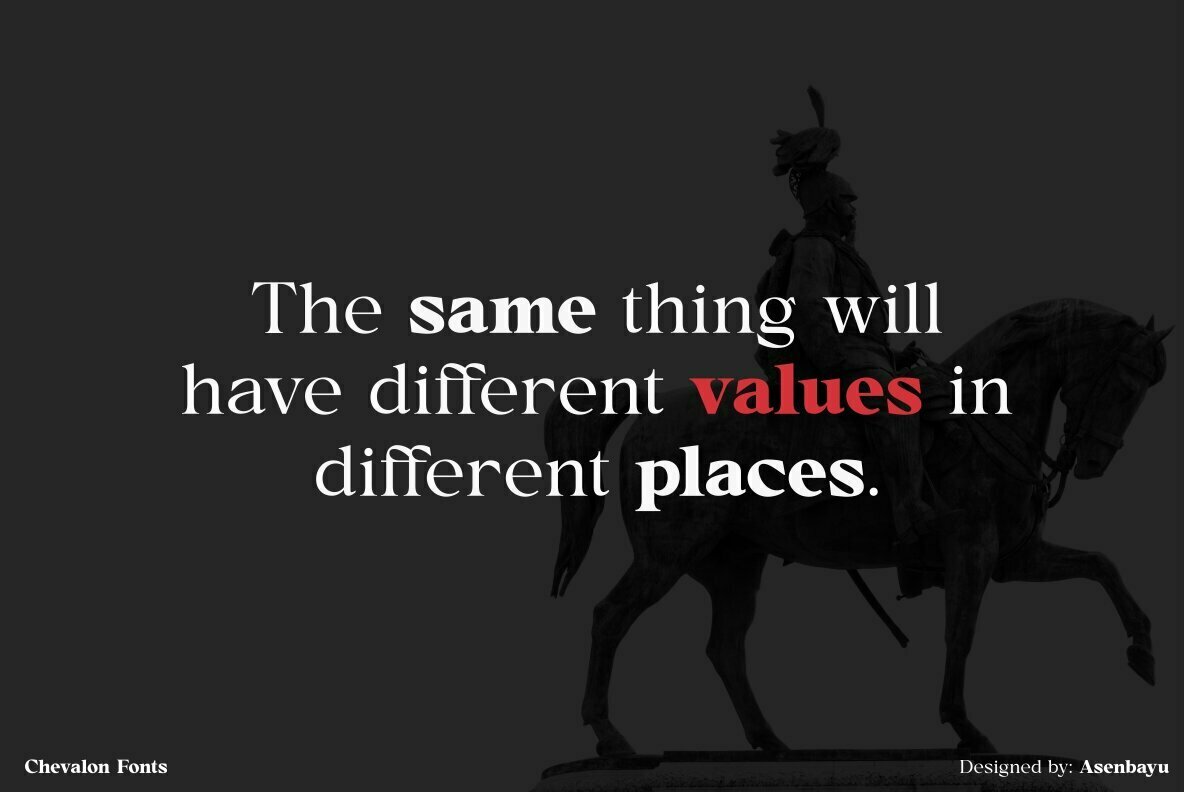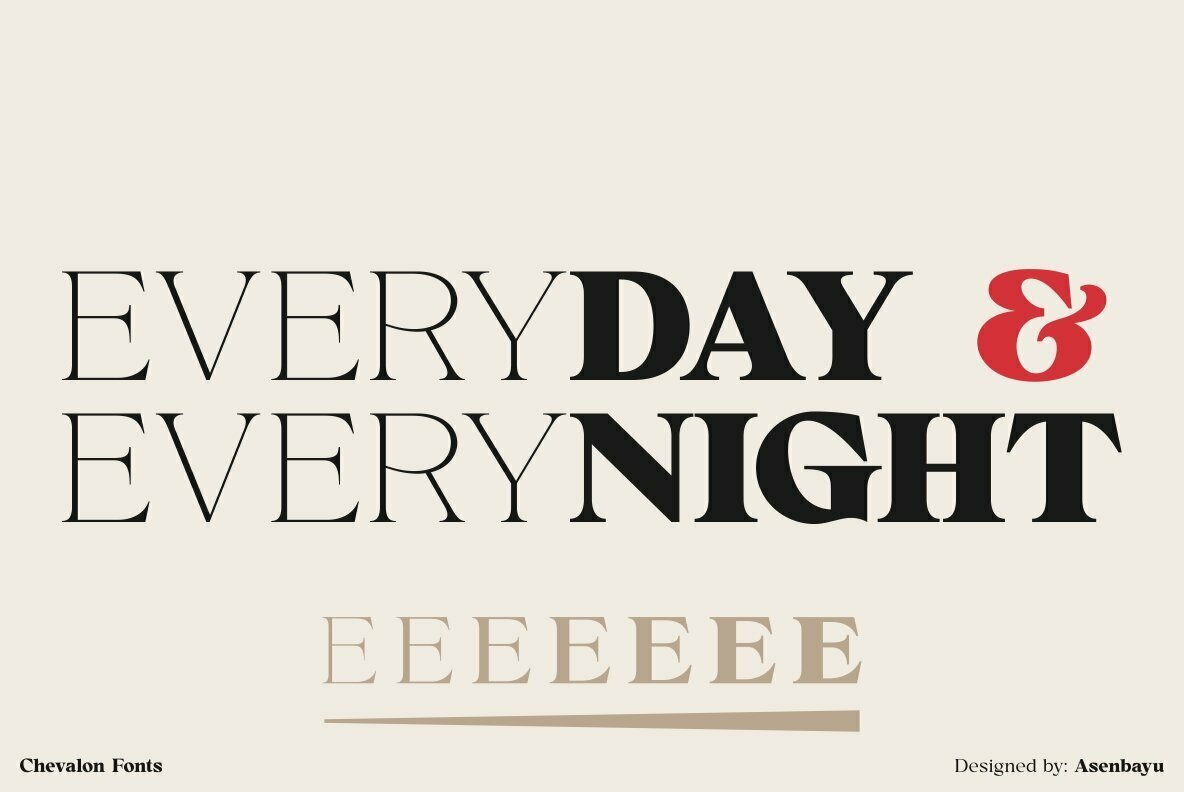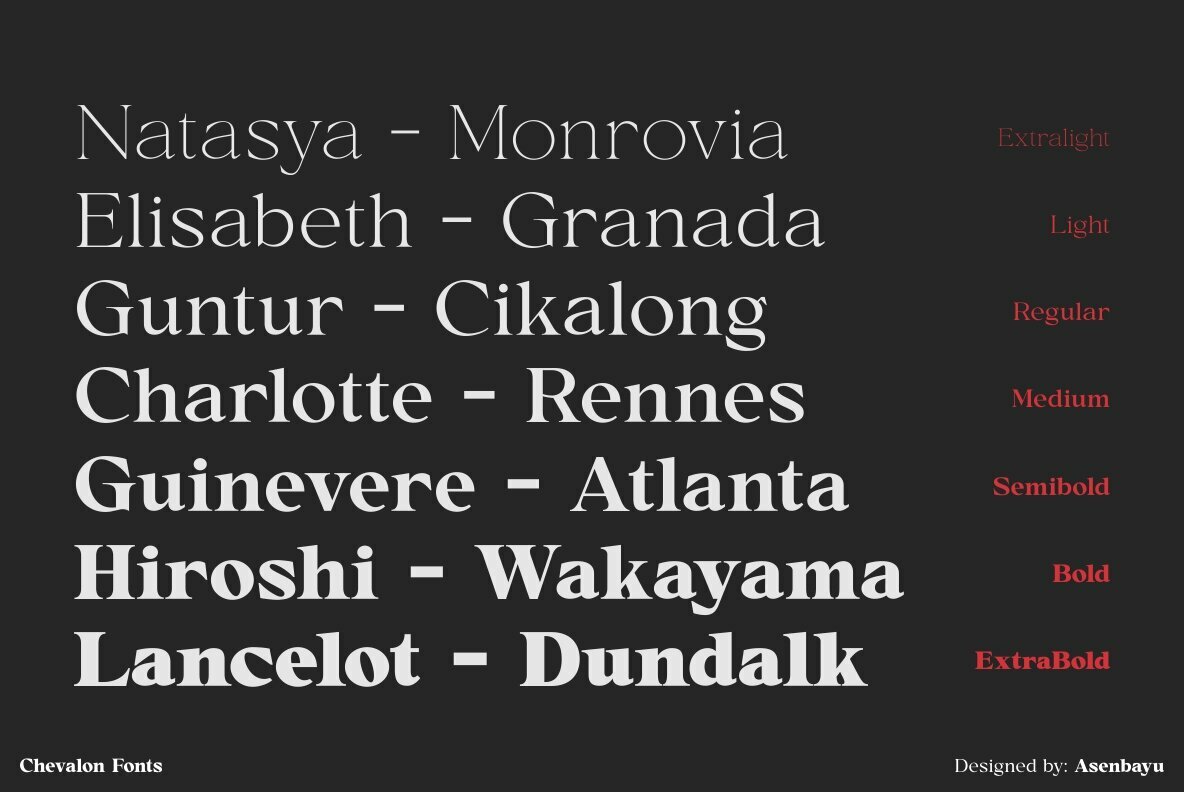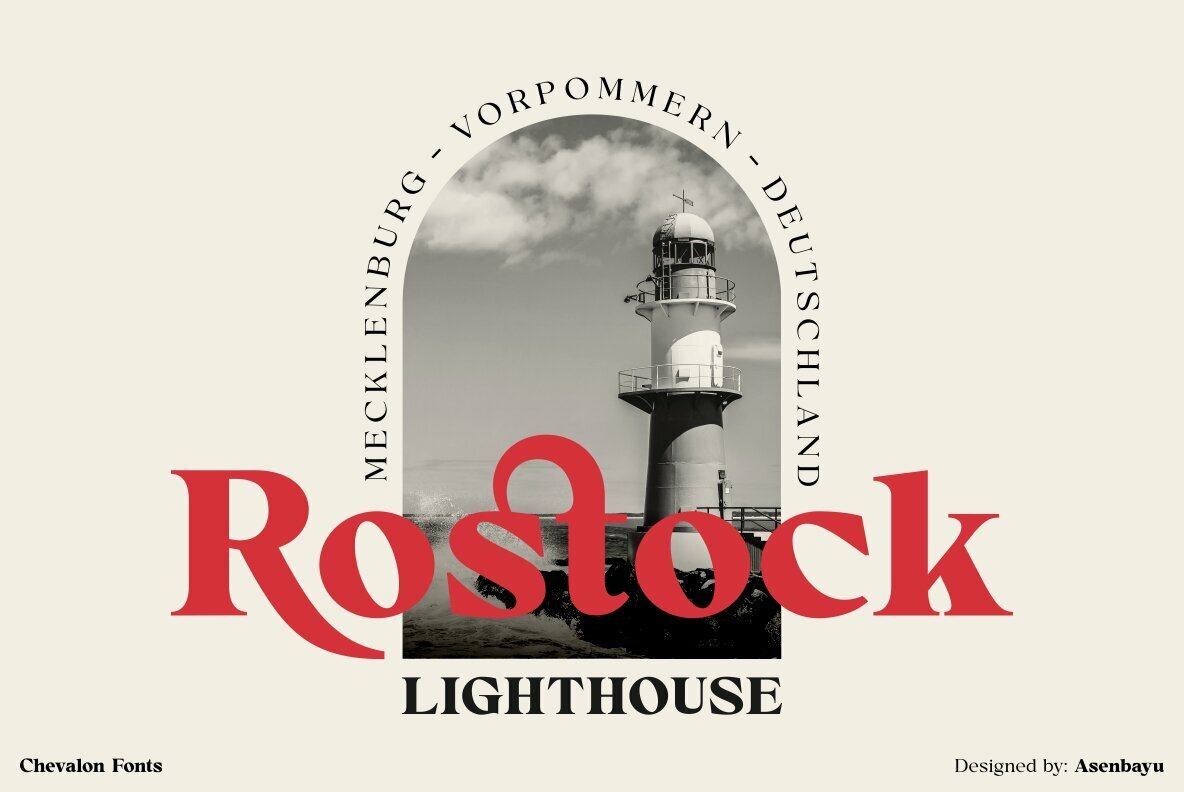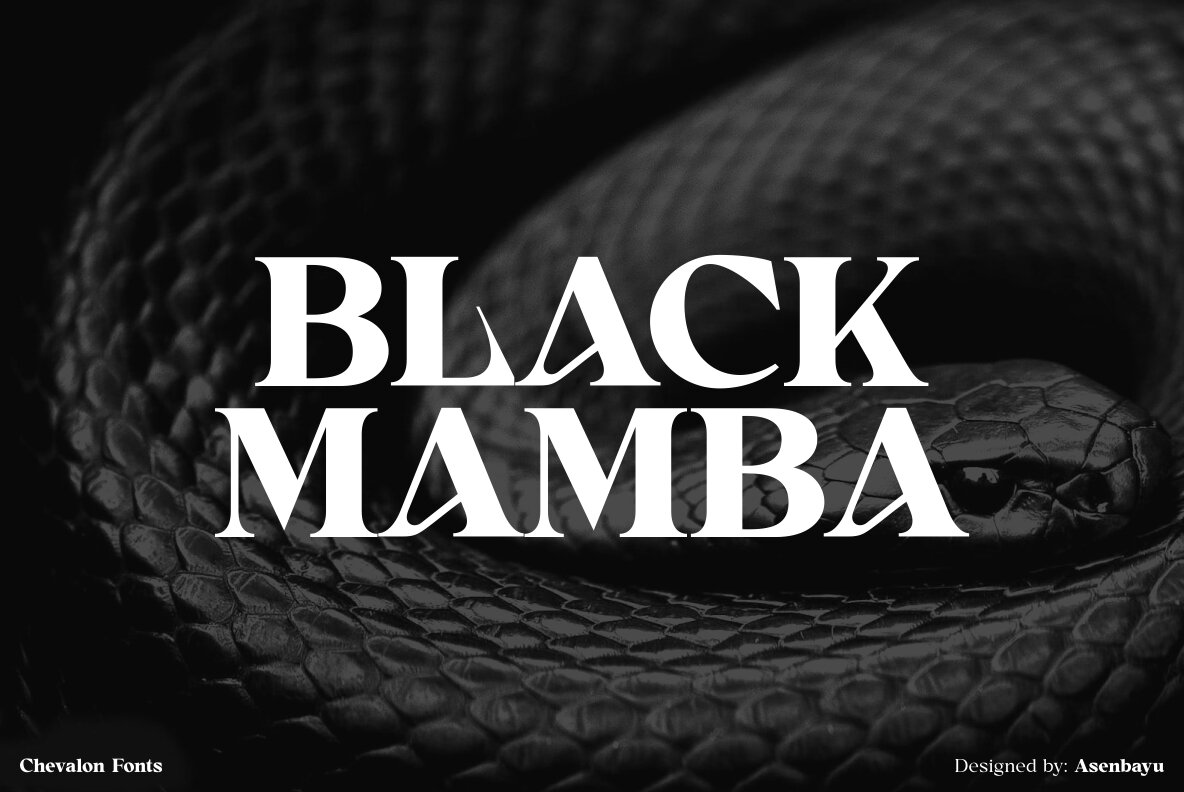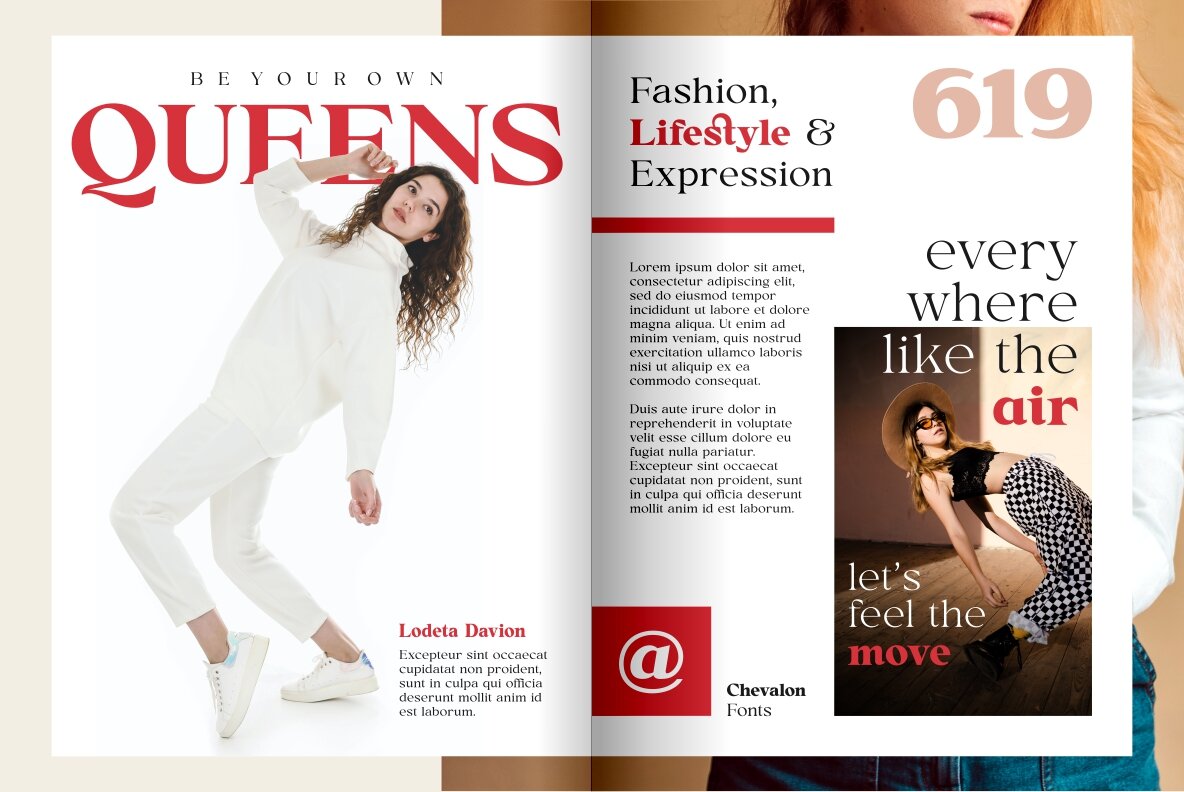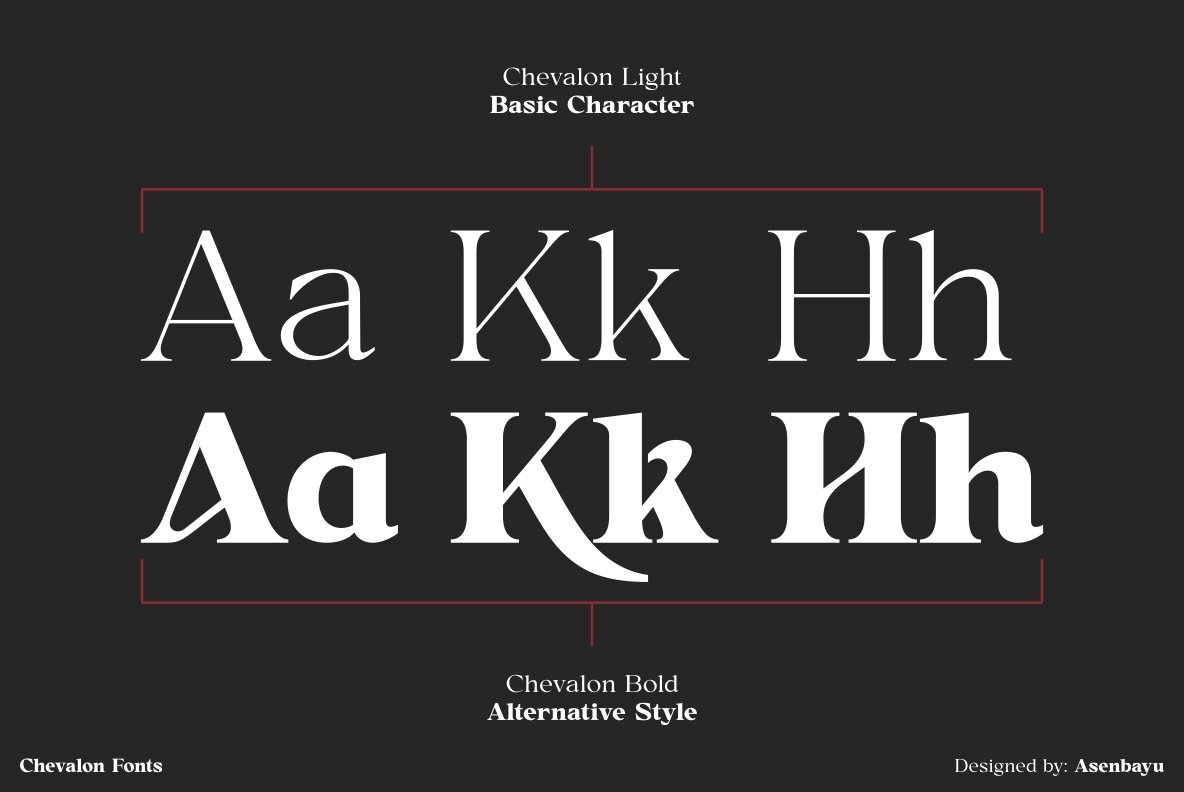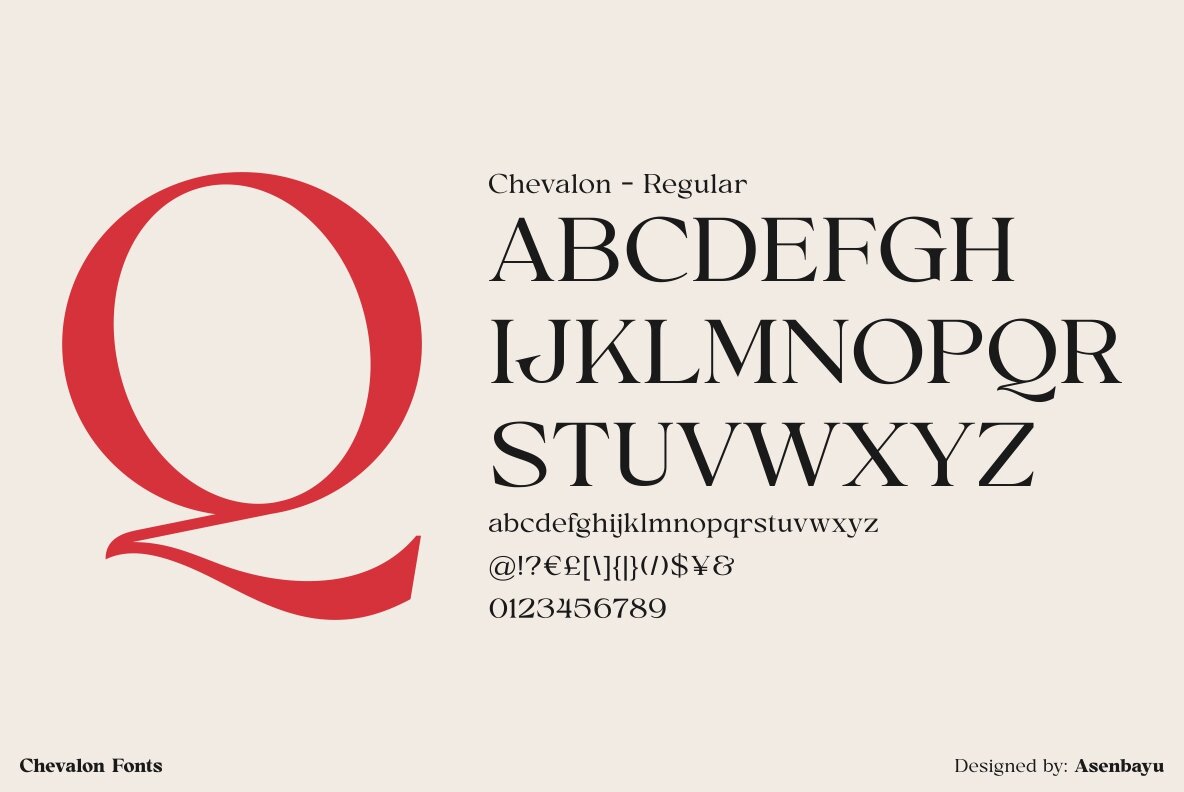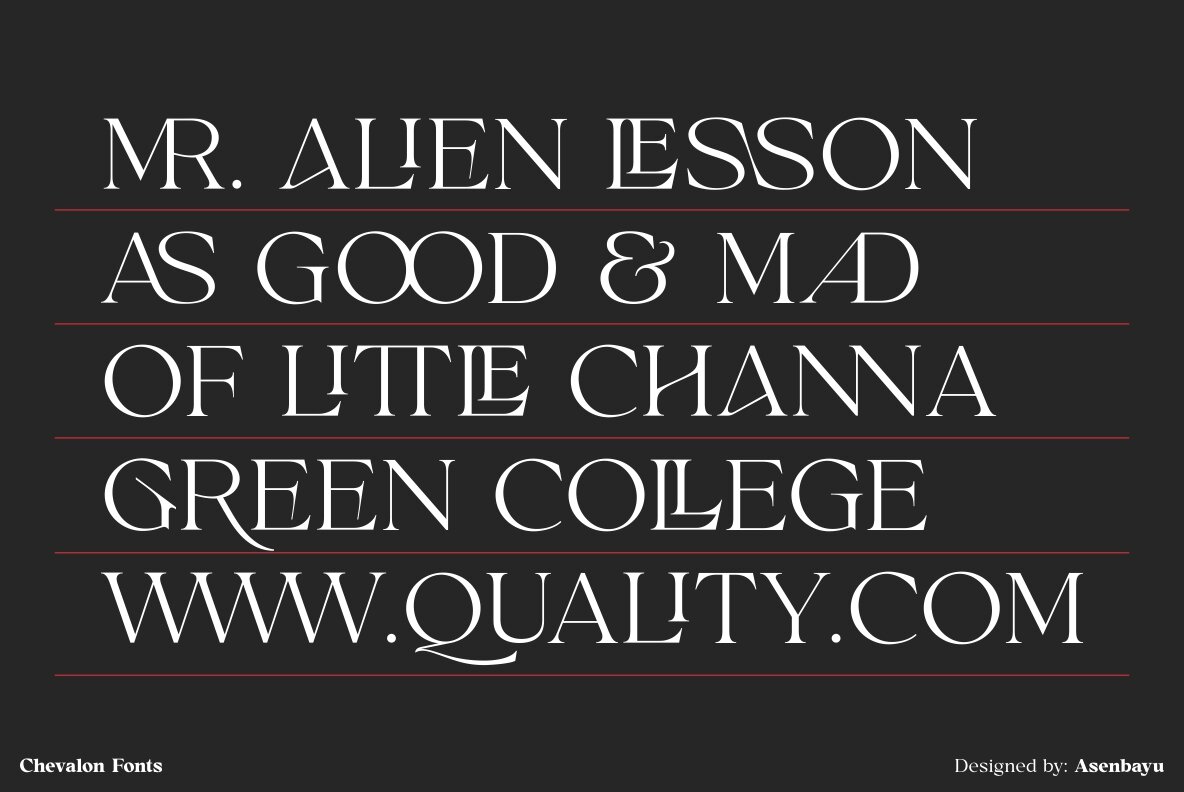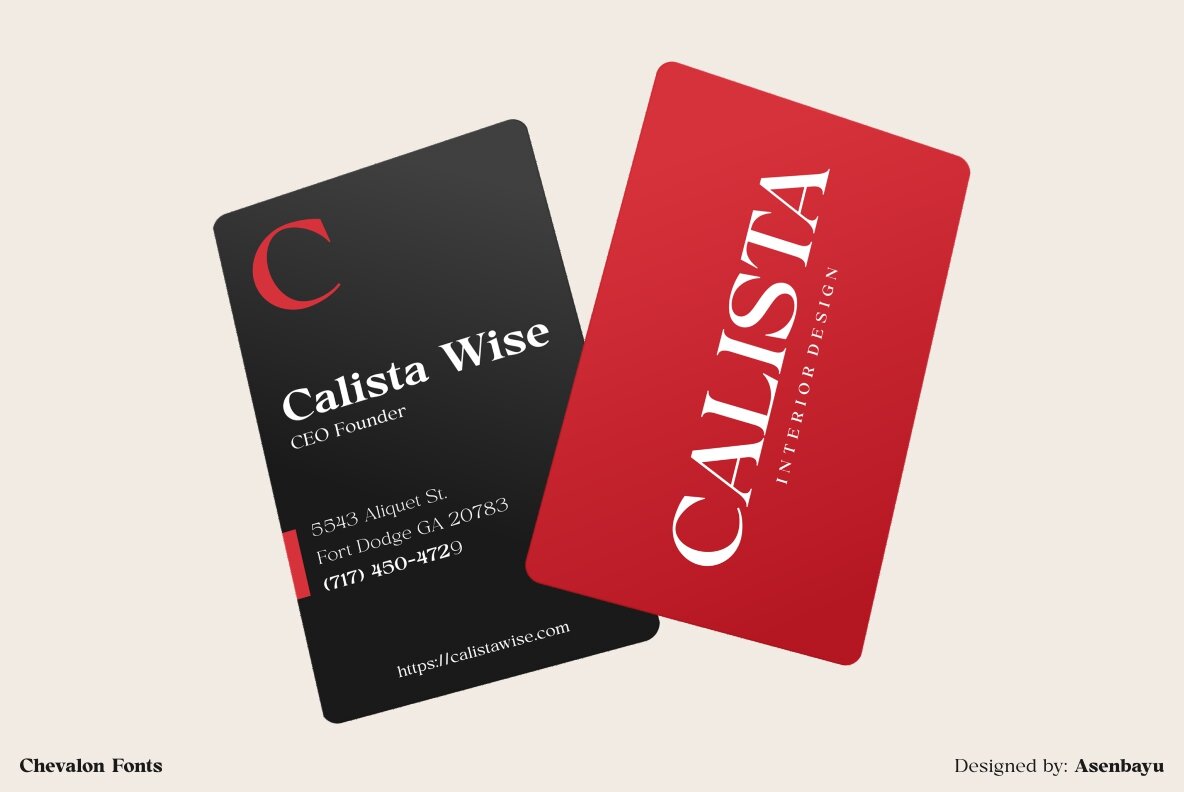
Chevalon is a versatile serif font consisting of 7 styles. Inspired by medieval roman letter, the Chevalon is like a glorious horse that has a strong yet elegant appearance. Each Chevalon letter is carefully crafted.
Chevalon fonts can help you complete various projects such as luxury brand logos, journals, business cards, headlines, products, social media posts, web and much more. If you are involved in a project that requires strong, elegant and professional writing, Chevalon font is perfect to help you get it done.
Chevalon fonts feature opentype, kerning, ligature and alternative style packed in 7 styles: ExtraLight, Light, Regular, Medium, SemiBold, Bold, and ExtraBold. Chevalon fonts include uppercase letters, lowercase letters, numeral, punctuation and multilingual support.